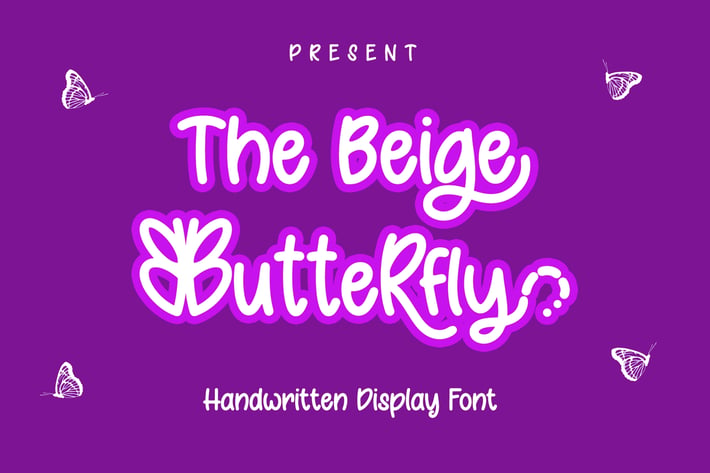
The Beige Butterfly - Handwritten Font
The Beige Butterfly is a unique display typeface perfect for titles, large text, branding, logotypes & graphic design purposes such as posters, pamphlets, and advertisements. This letter font can be a great choice for creating amazing logos, promotional content, and marketing presentations that can bring uniqueness and freshness at its best.
Uppercase and Lowercase letters
Numbering and Punctuations
Alternate